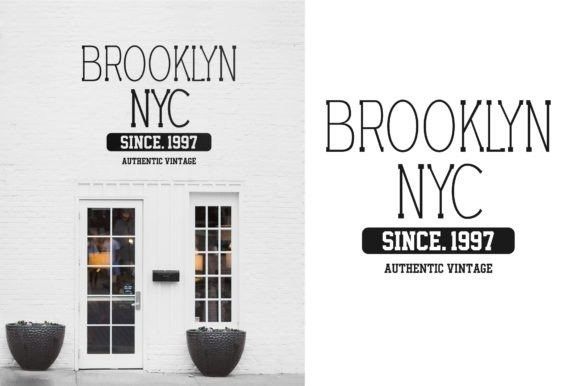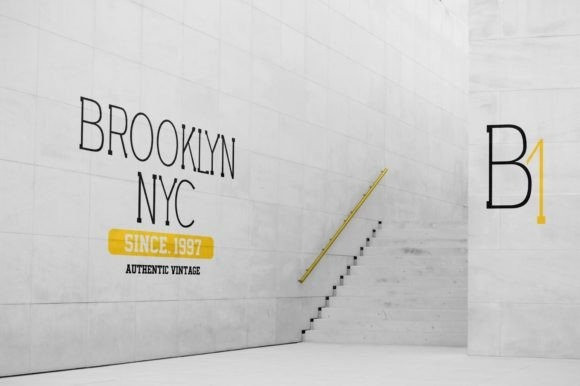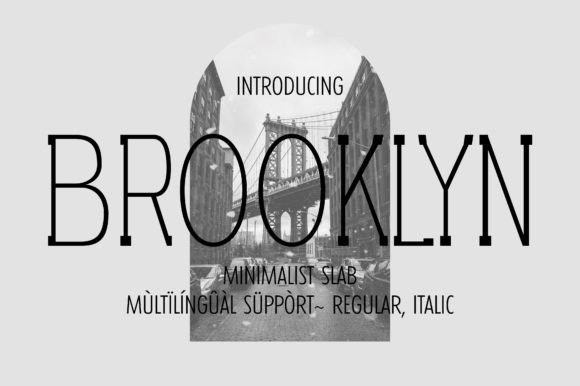
Brooklyn Slab Font
Brooklyn Slab Font is a beautiful, delicate, and thin slab serif typeface. Its delicate thin aspect renders it very clean and elegant. It fits really well in various contexts such as packaging design, perfume design, fashion design, magazine covers, large-scale titles, etc.